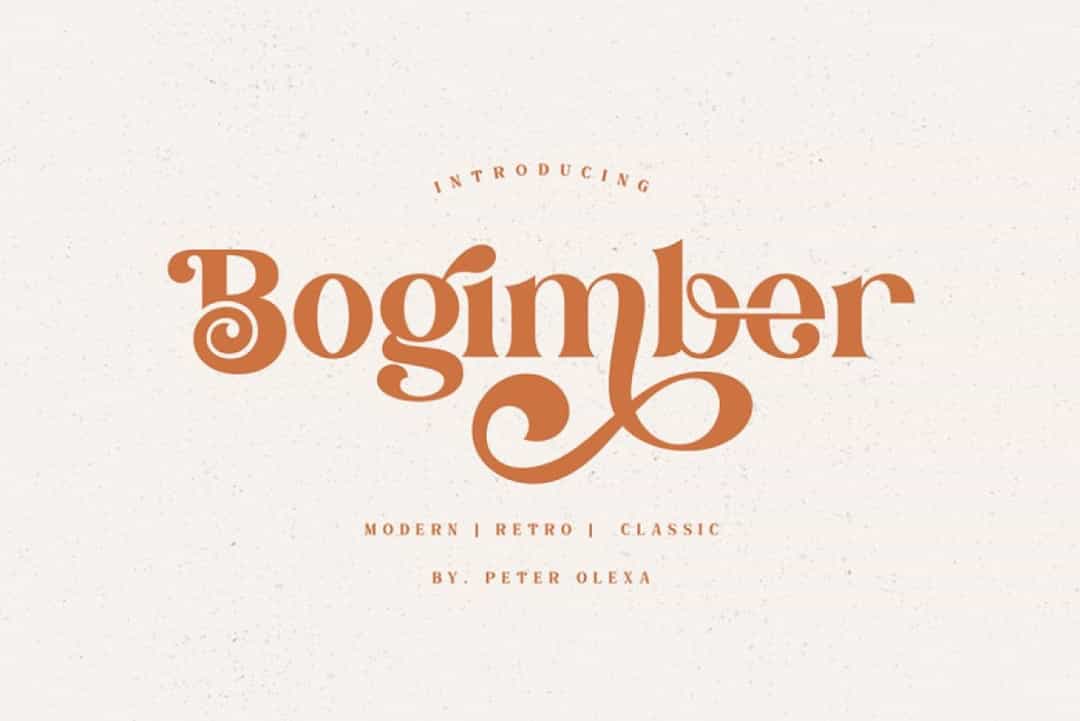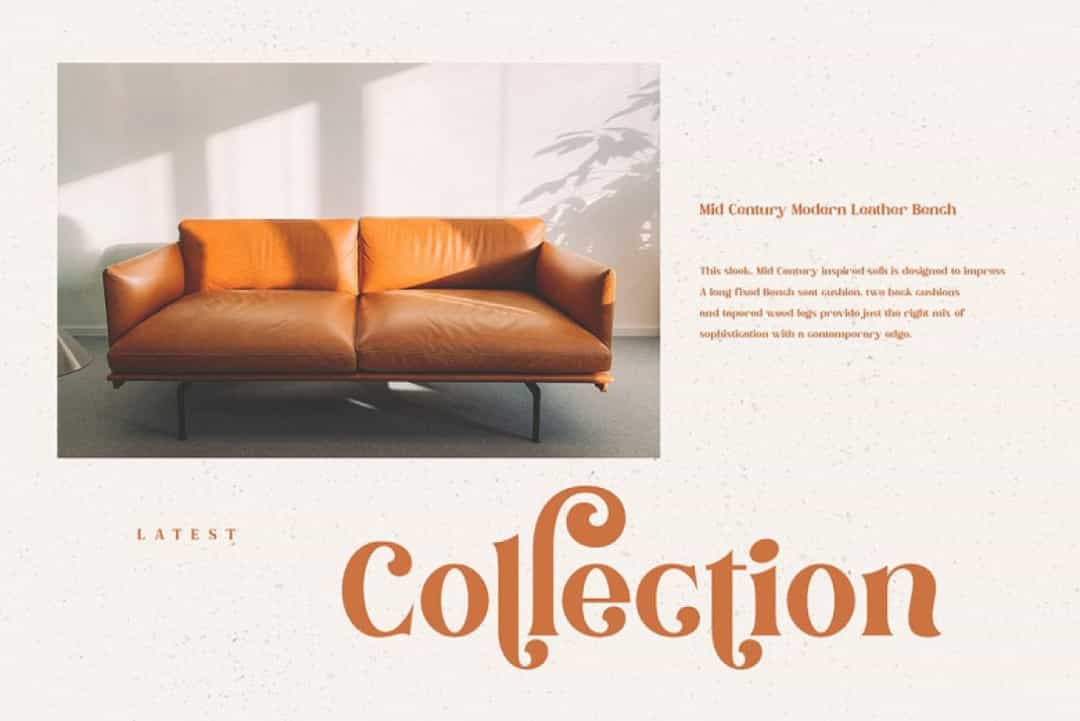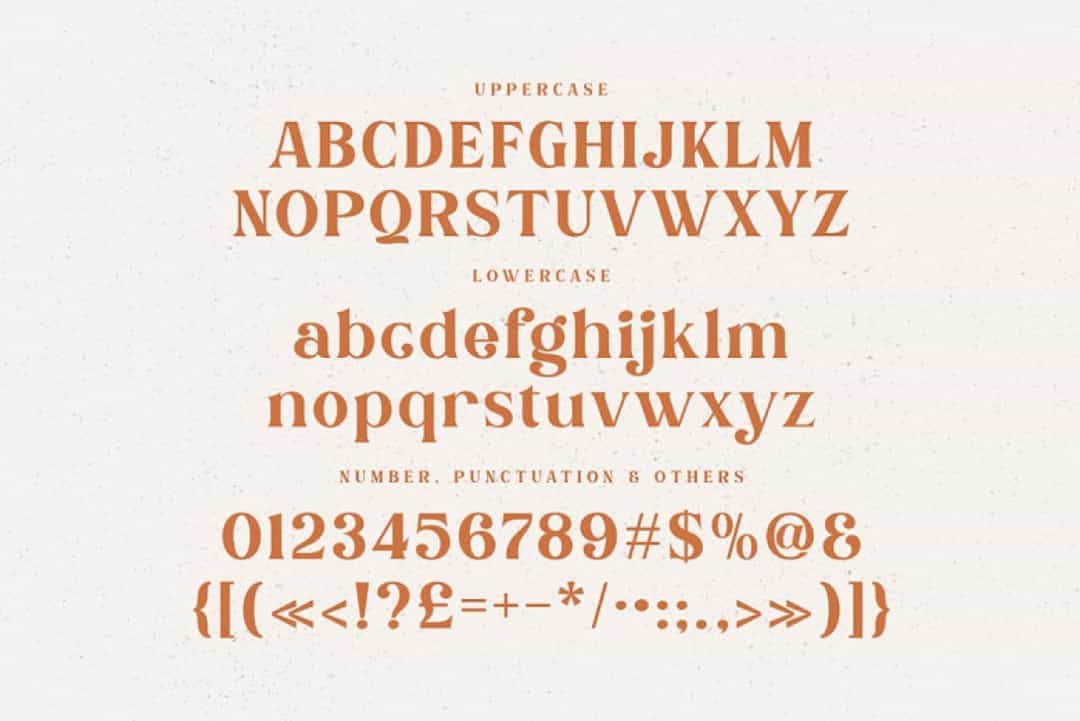
Bogimber font offers you a stylish, elegant, artistic, luxurious, retro & modern style serif font perfect for all of your projects. Fashionable yet sophisticated style make this font suitable for branding ventures. A range of ligatures & alternates help create distinctive logo designs or website headers!